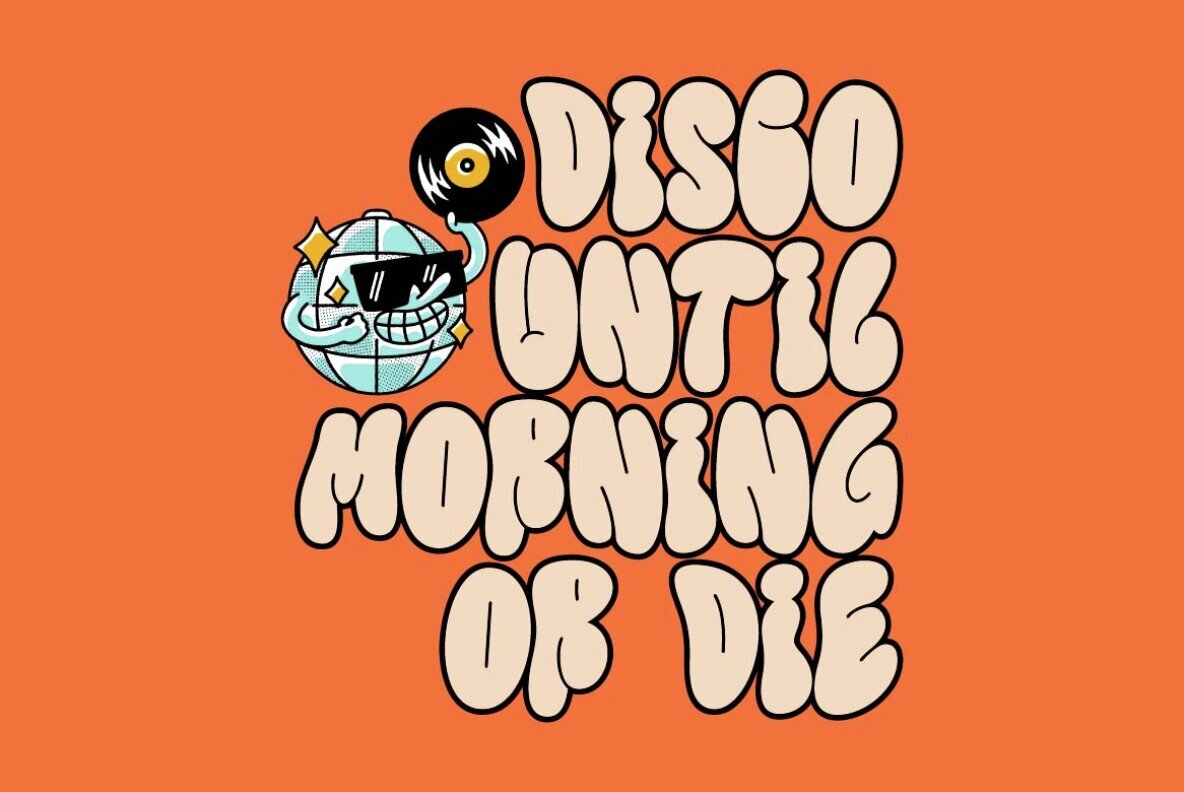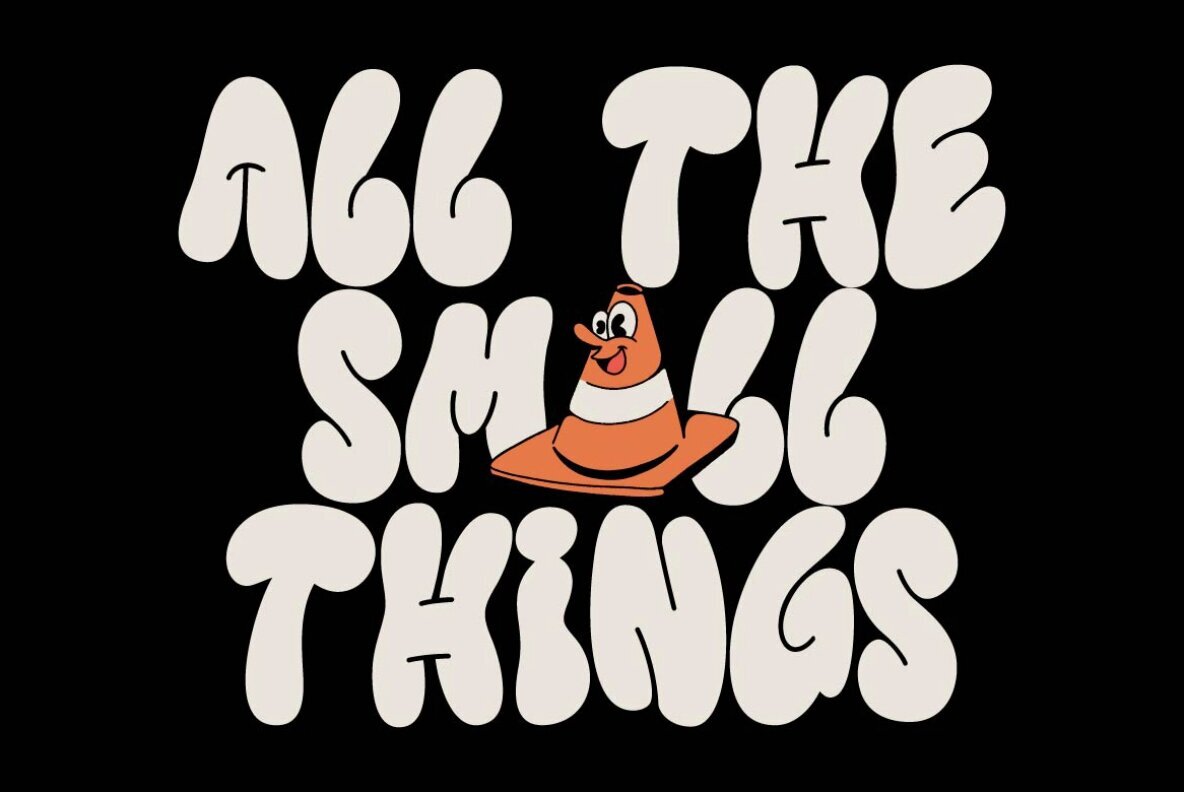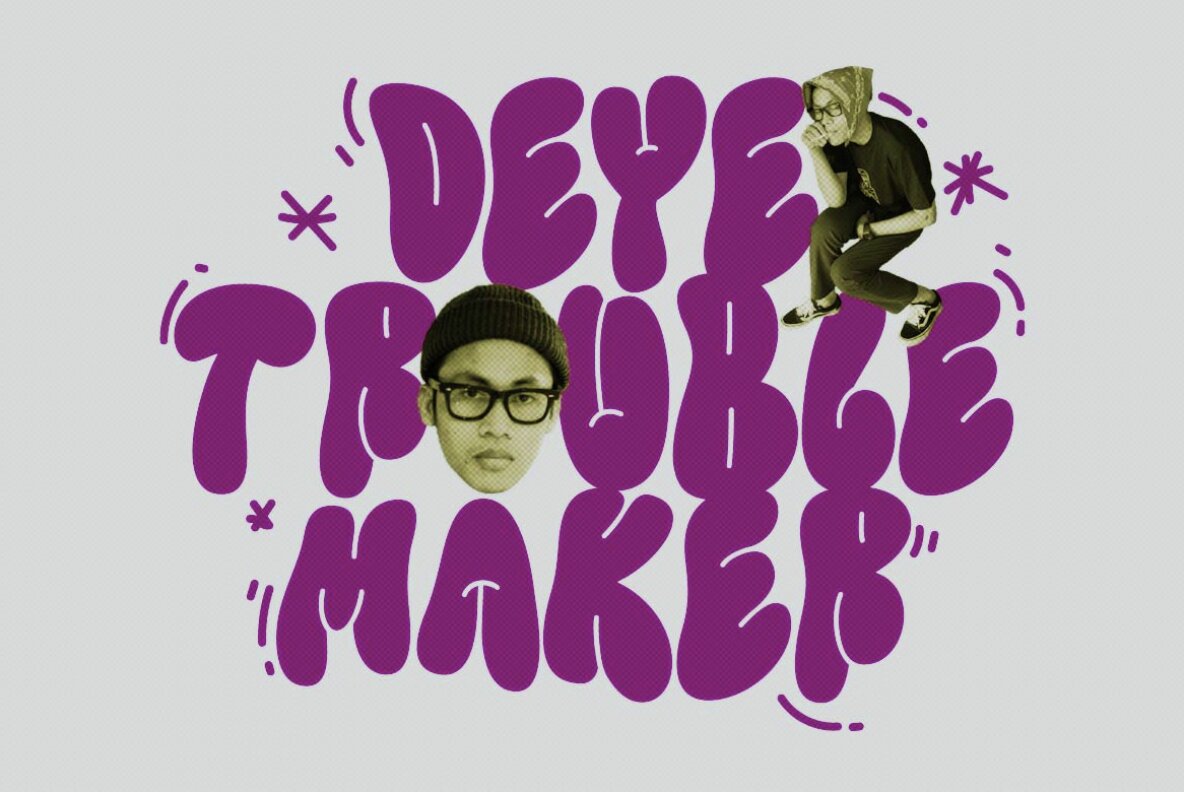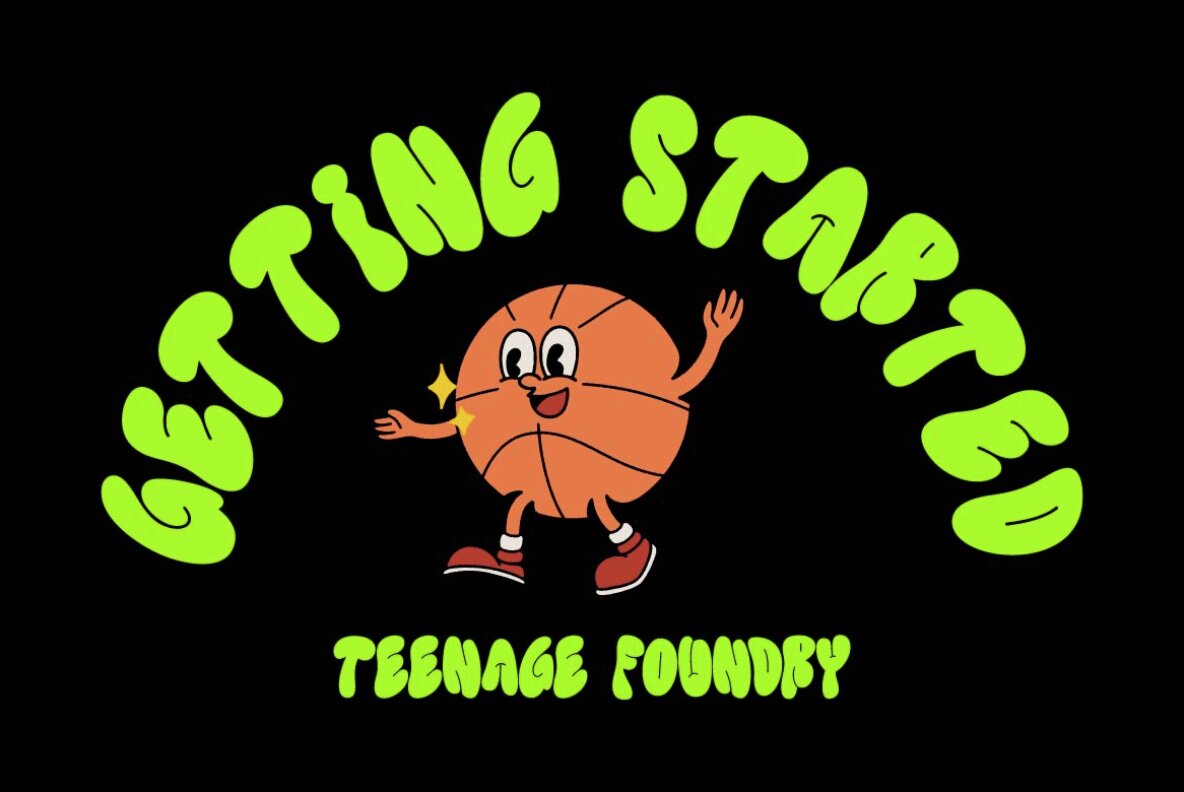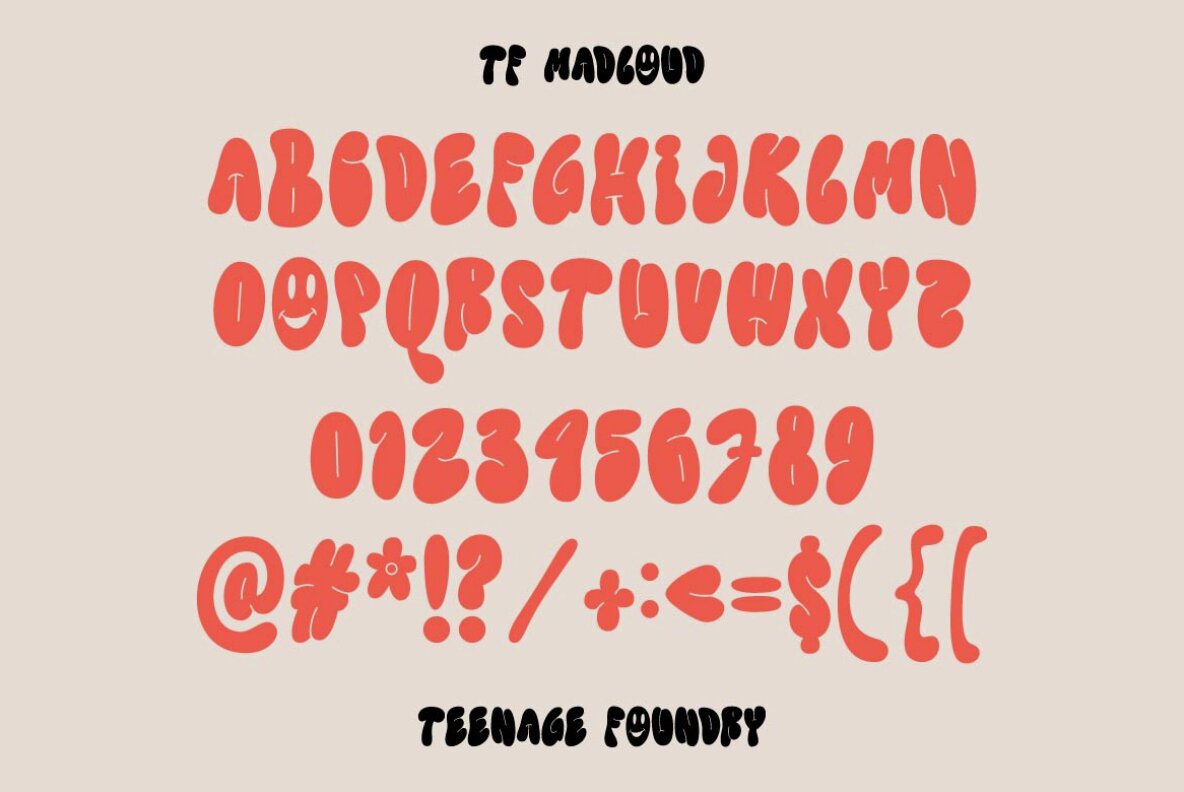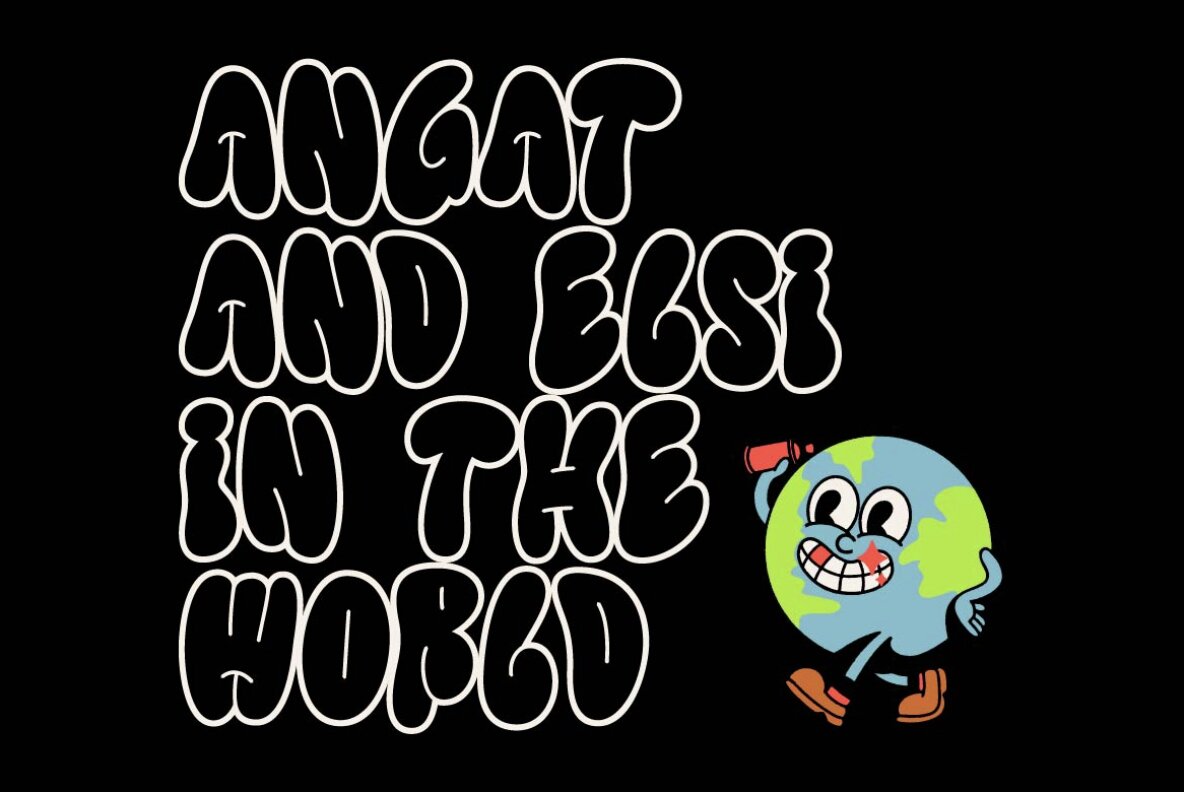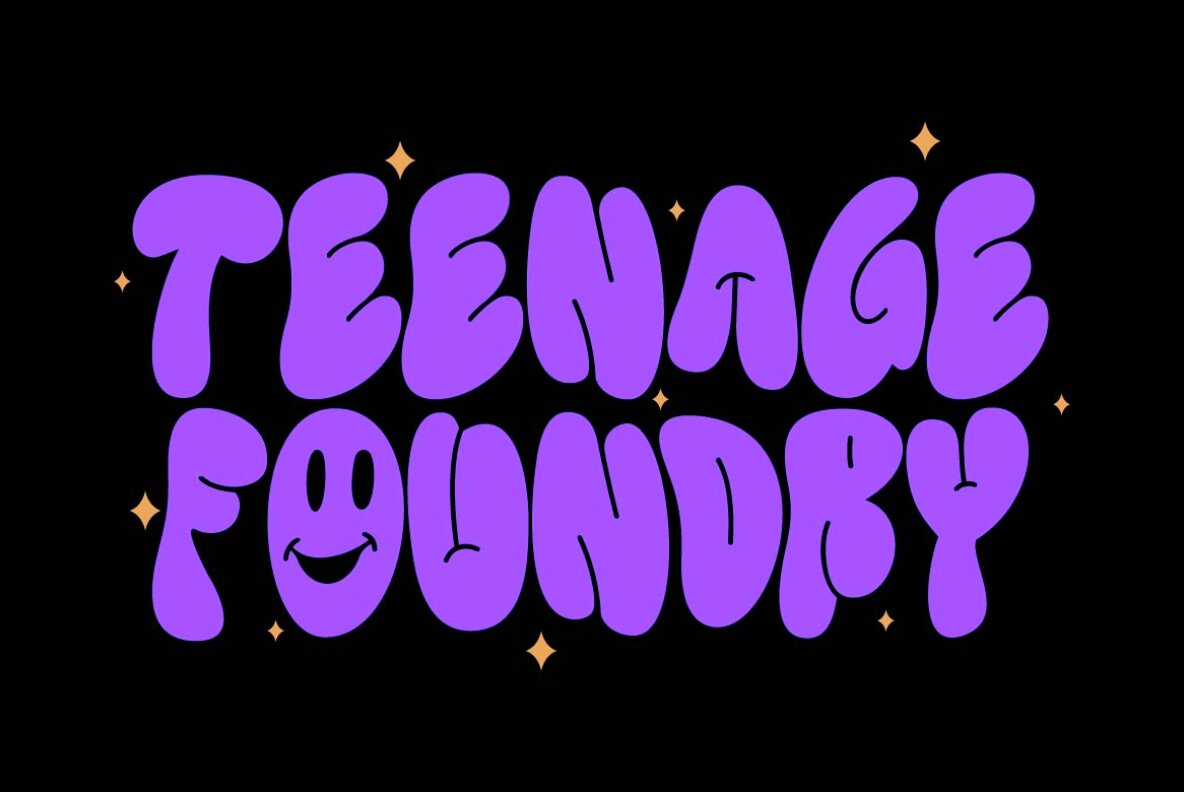
TF Madloud Font
TF Madloud offers a bold, playful graffiti style perfect for projects that require an eye-catching touch. Its thick, rounded letters are designed to capture attention and convey a fun, carefree vibe. The hand-drawn quality of this font provides a unique, personal flair that distinguishes it from standard typefaces. Available in both regular and outline versions, TF Madloud allows for versatile use across a range of projects. Additionally, the font package includes five illustrations to inspire creativity and add extra flair to your designs.TF Madloud: Bold and Playful Graffiti Font
Font Versions and Illustrations
Teenage Foundry brings playful irreverence and bold character to contemporary type design. Known for high-impact display fonts, their work often leans into retro, pop, and offbeat aesthetics—ideal for projects that demand standout personality. From groovy curves to heavy geometric forms, their catalog spans a...